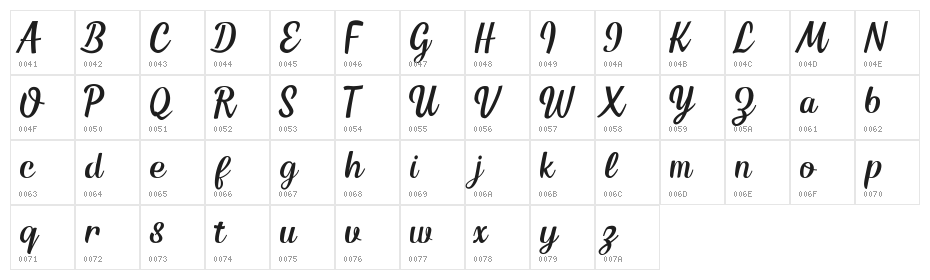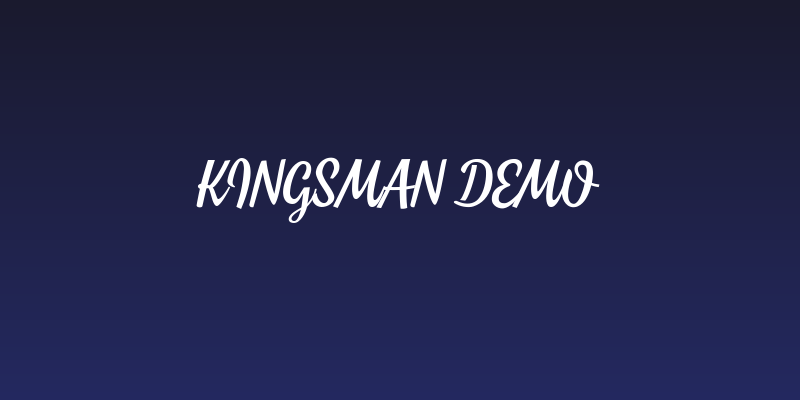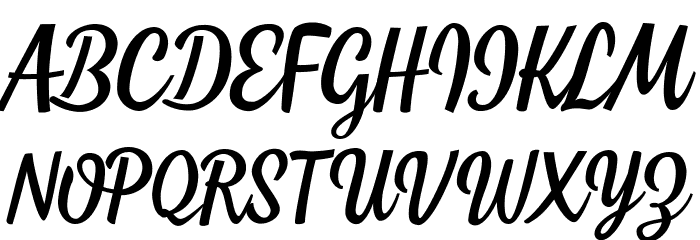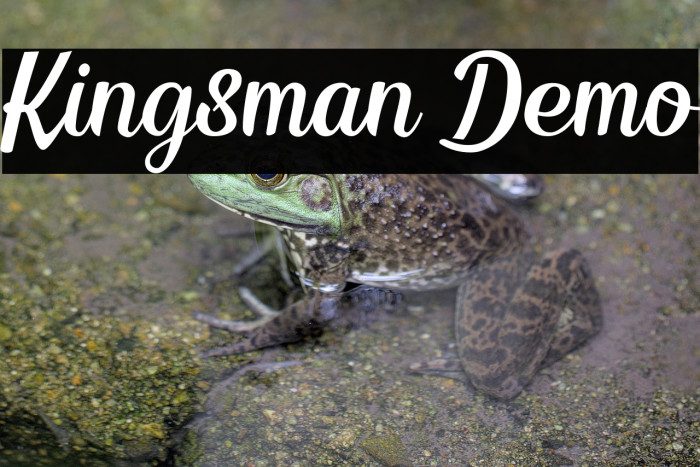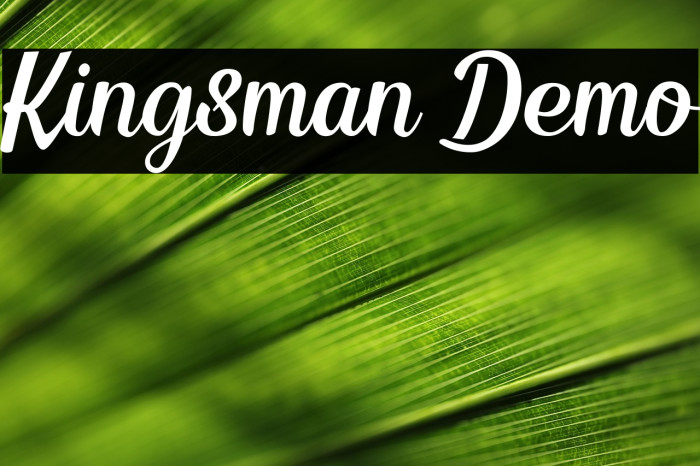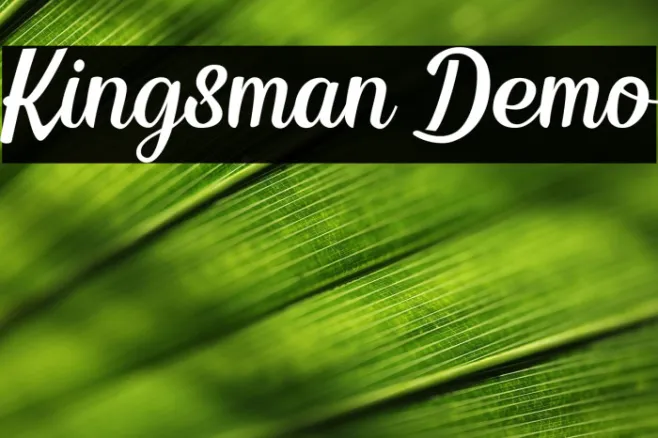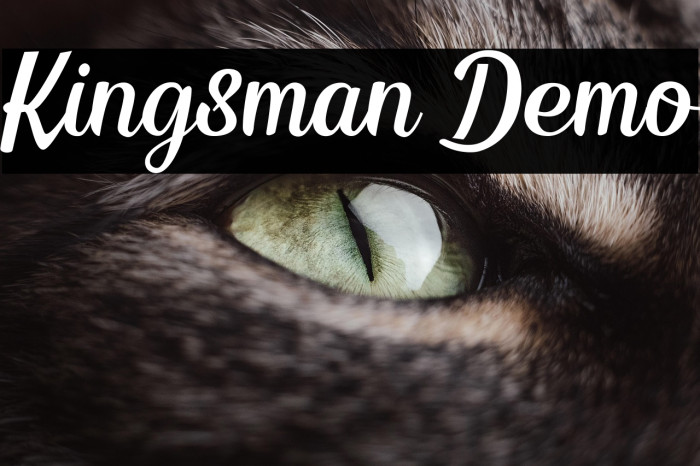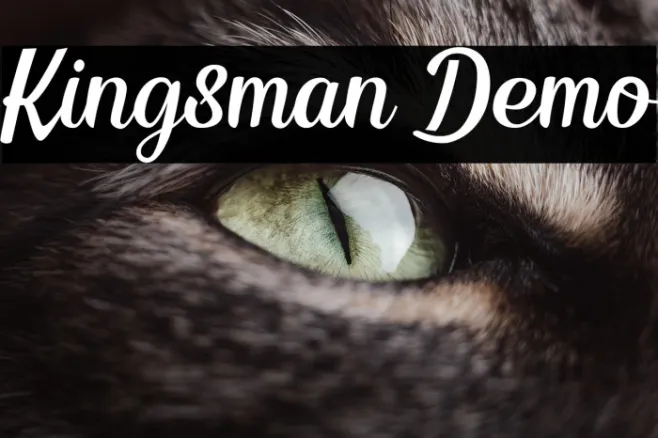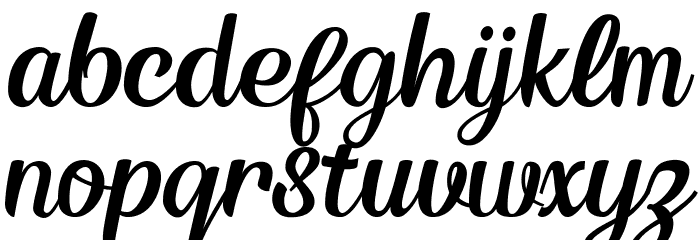
Kingsman Demo Font
Kingsman Demo Description
This font exudes a sense of elegance and sophistication, characterized by its flowing script style. The letters are interconnected, creating a seamless and fluid appearance. The uppercase letters are bold and prominent, while the lowercase letters maintain a graceful and consistent flow. The strokes are smooth and rounded, with a slight slant that adds to the dynamic feel of the font. The overall design is reminiscent of classic calligraphy, making it suitable for projects that require a touch of refinement and class. The font's style is both timeless and versatile, allowing it to be used in a variety of contexts.
| Proposed Projects | Ideal for wedding invitations, elegant branding, luxury product packaging, and formal event materials. |